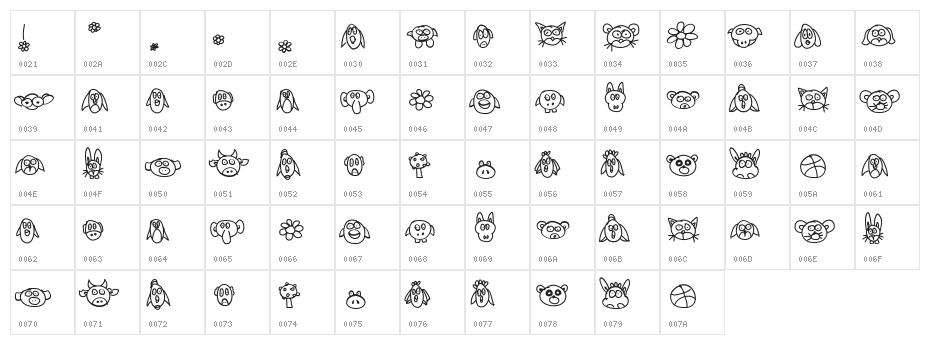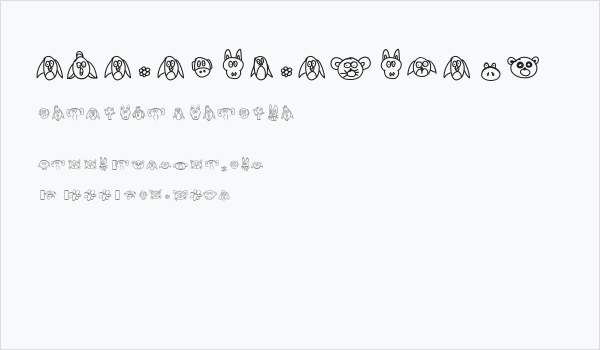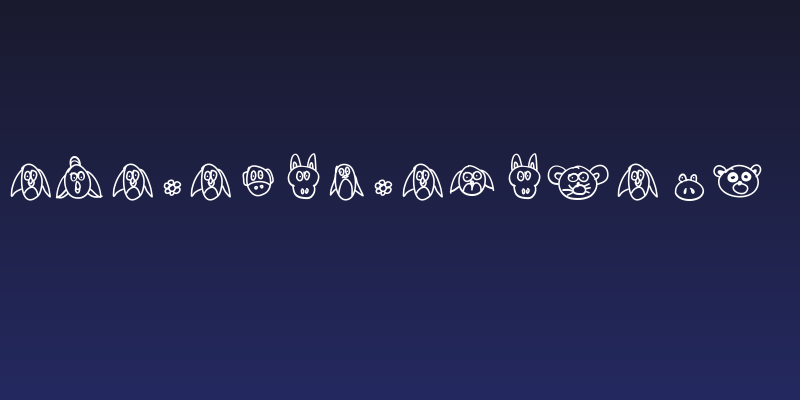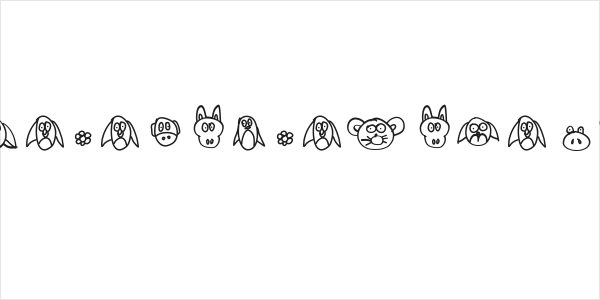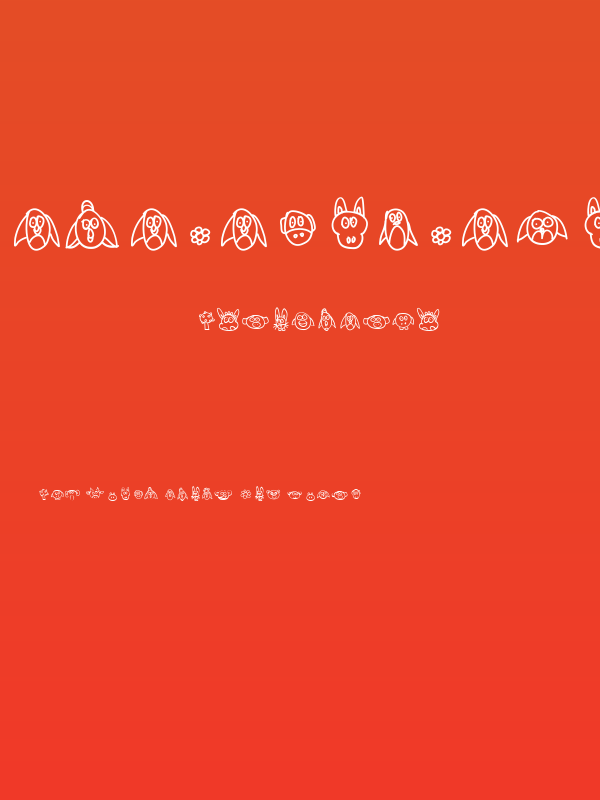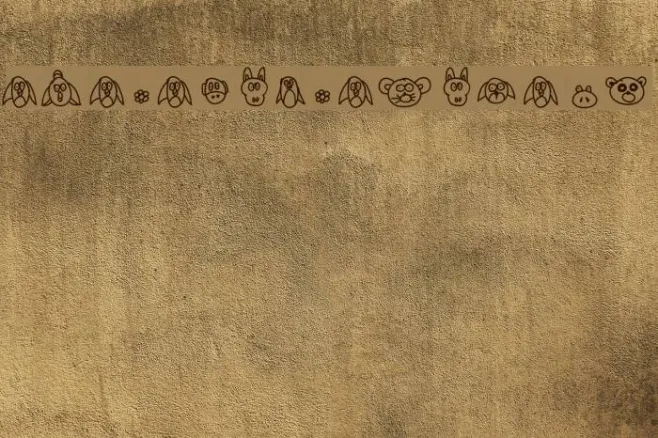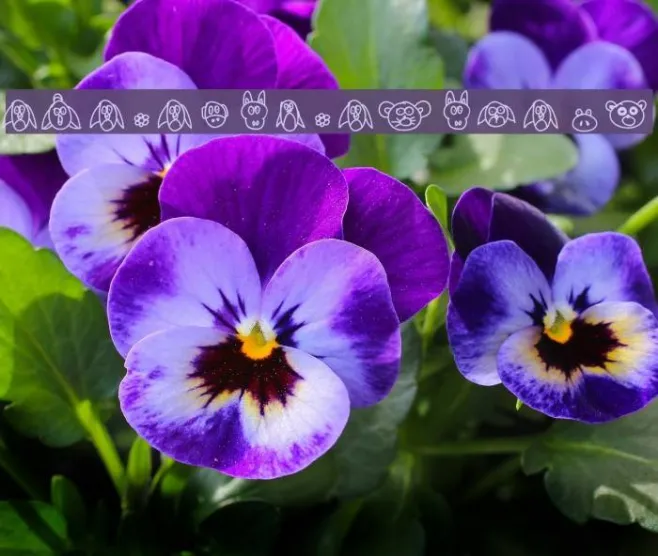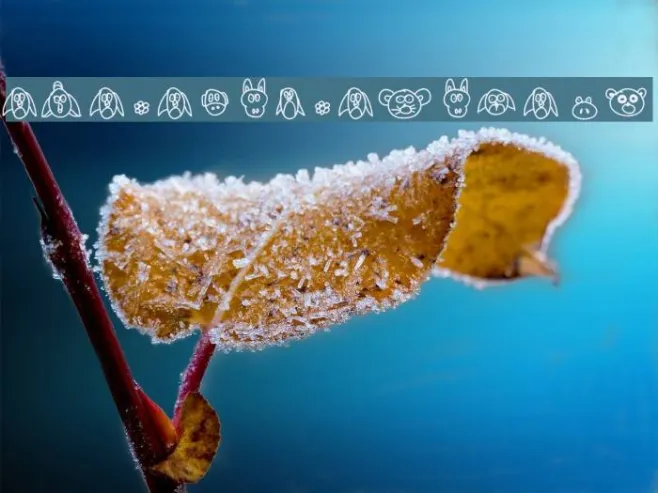
Aka-Acid-Animaux Font
Aka-Acid-Animaux Description
This font is a playful and whimsical collection of animal faces and simple shapes, each character representing a different cartoon-like animal or object. The style is hand-drawn, with a casual and friendly appearance, making it ideal for children's projects or lighthearted designs. The characters are outlined in black, with no fill, giving them a clean and crisp look. The variety of animals includes dogs, cats, cows, and more, each with exaggerated features that add to the charm and uniqueness of the font. The overall design is consistent, with each character maintaining a similar size and style, ensuring a cohesive look when used together.
| Overall Style | Whimsical |
| Use Case | Logos, Decorative elements, Children's materials |
| Proposed Projects | Ideal for children's books, educational materials, playful branding, and greeting cards. |